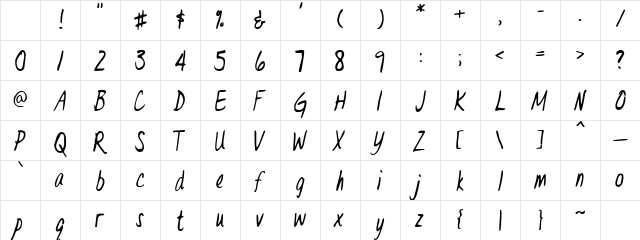
Complete Dr. Eve L Regular glyph index. Displaying only characters natively supported by Dr. Eve L Regular font.
Dr. Eve L is a composed and adaptable typeface that performs quietly and consistently across a wide range of design contexts.